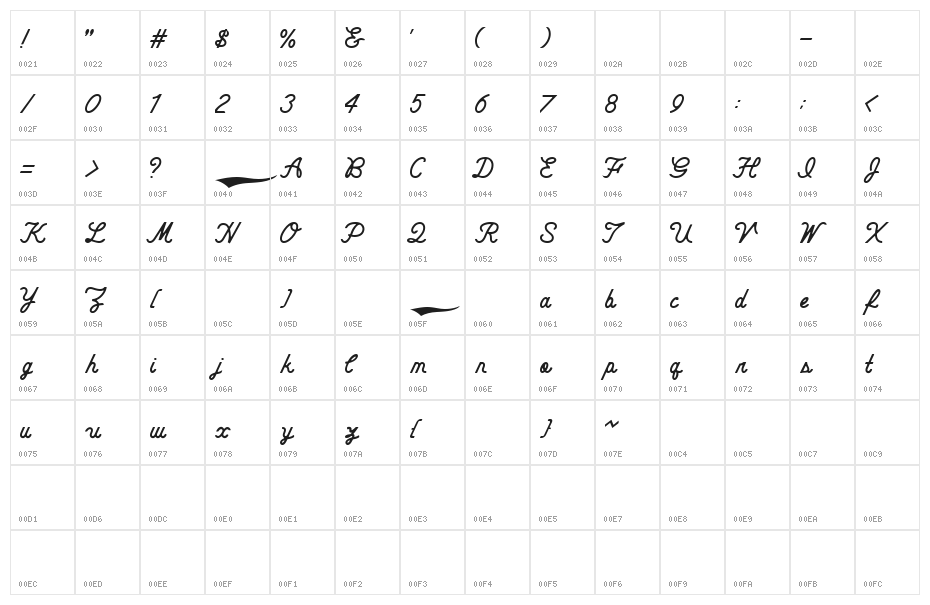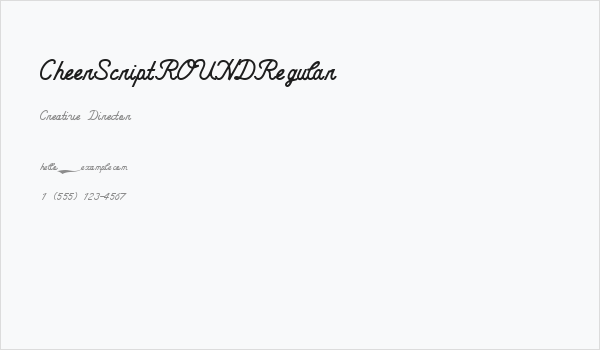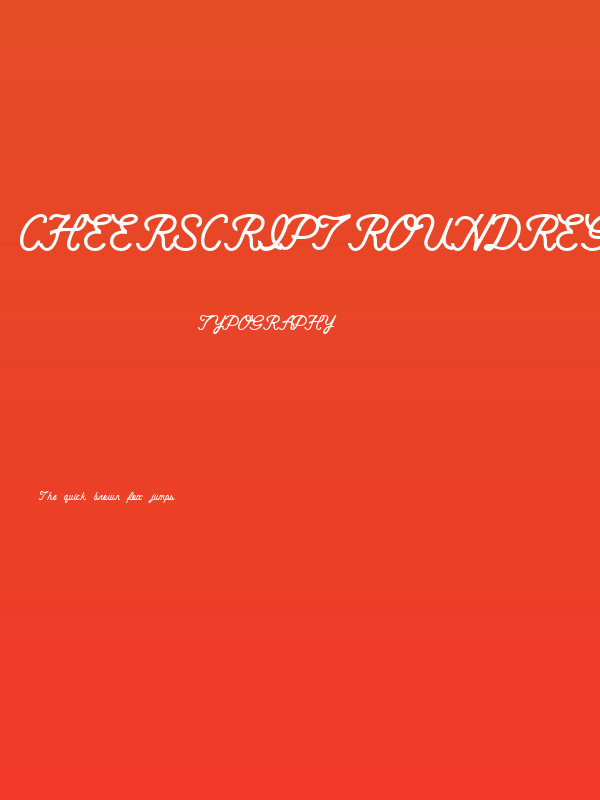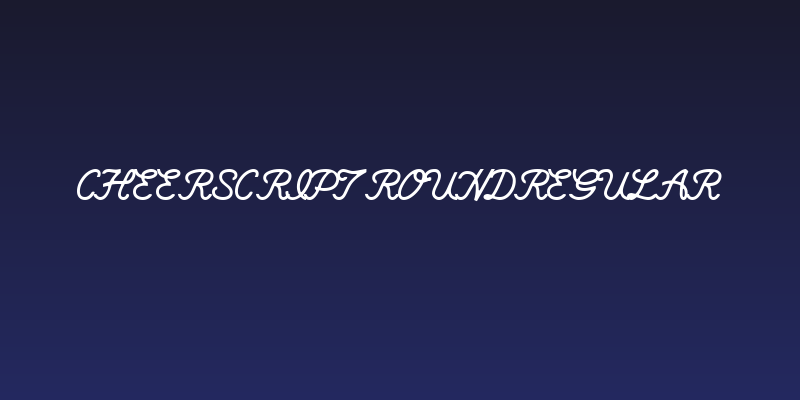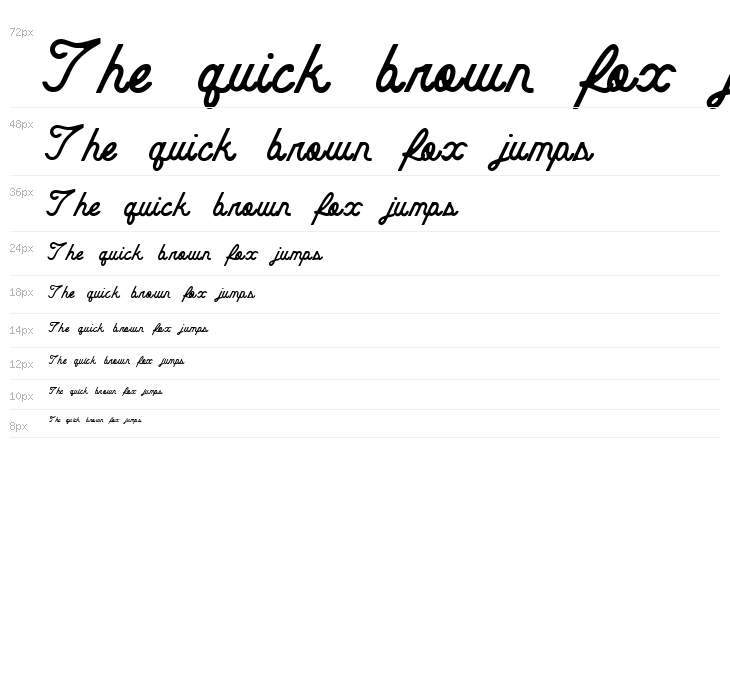
CheerScriptROUNDRegular Font
| Stile generale | Elegant, Artistic |
| Caso d'uso | Logos, Invitations, Artistic projects |
| Progetti proposti | Ideal for wedding invitations, greeting cards, personal branding, and artistic projects. |